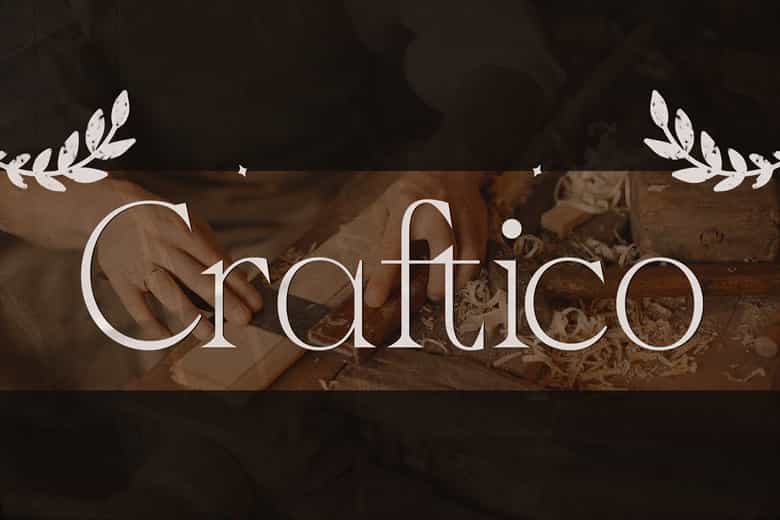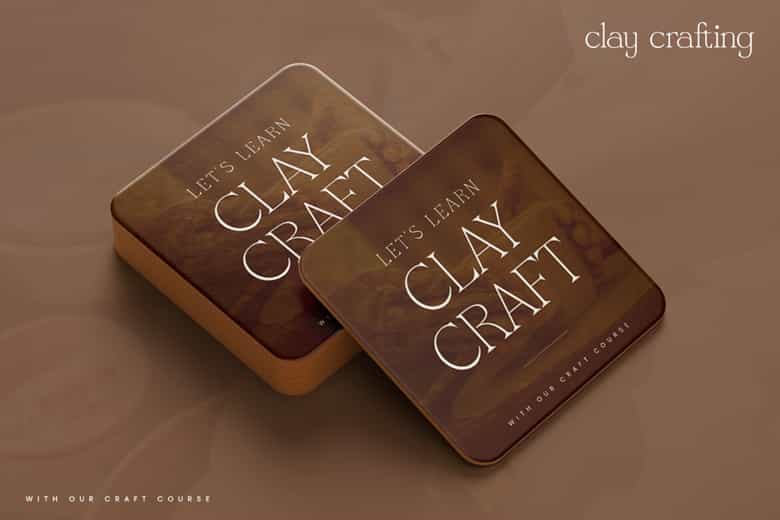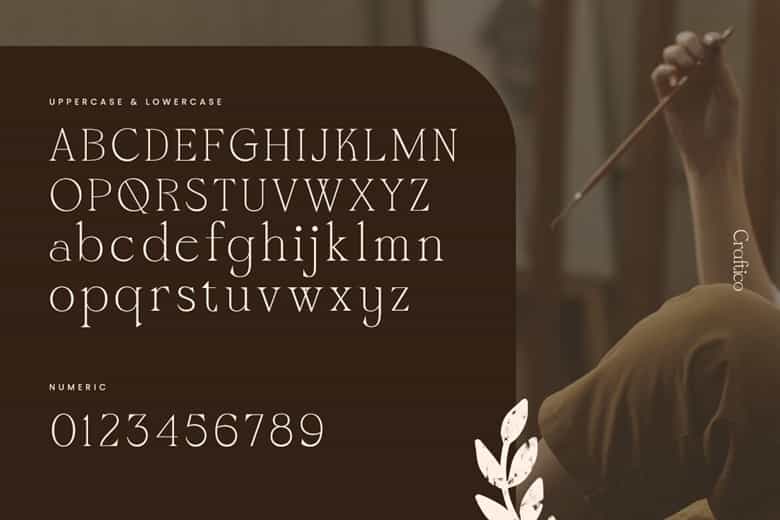
Craftico is a refined serif font that will add a class and sophistication to whatever you would like to design. Craftico is meant to give off an aura of sophistication and a classic, yet never-aging beauty because of its smooth lines, elegant serifs and the elegant interaction between thick and thin lines.